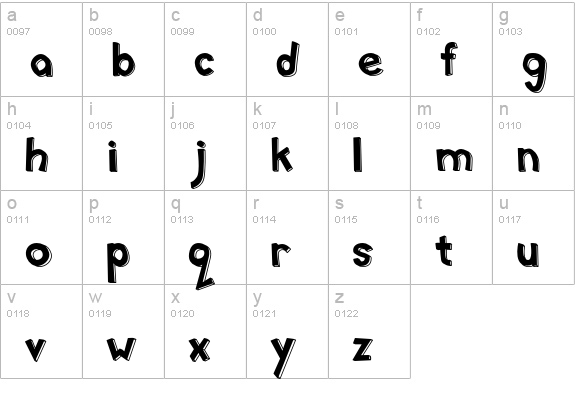
Mitten-Left Font Details
Mitten-Left font offers a delightful and charming aesthetic that is both playful and elegant. With its unique left-leaning design, this font exudes a sense of creativity and originality, making it perfect for adding a touch of whimsy to your projects. The smooth curves and clean lines of Mitten-Left font make it easy to read, while its distinctive style sets it apart from other fonts. Best of all, Mitten-Left font is available for free download at FontsMarket.com. Whether you're working on a personal project or a professional design, this font is sure to bring a fresh and creative flair to your work. Add a touch of personality and charm to your designs with Mitten-Left font today!